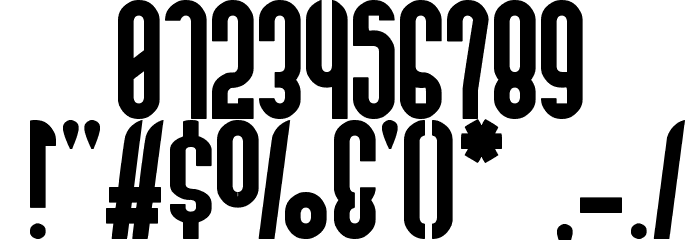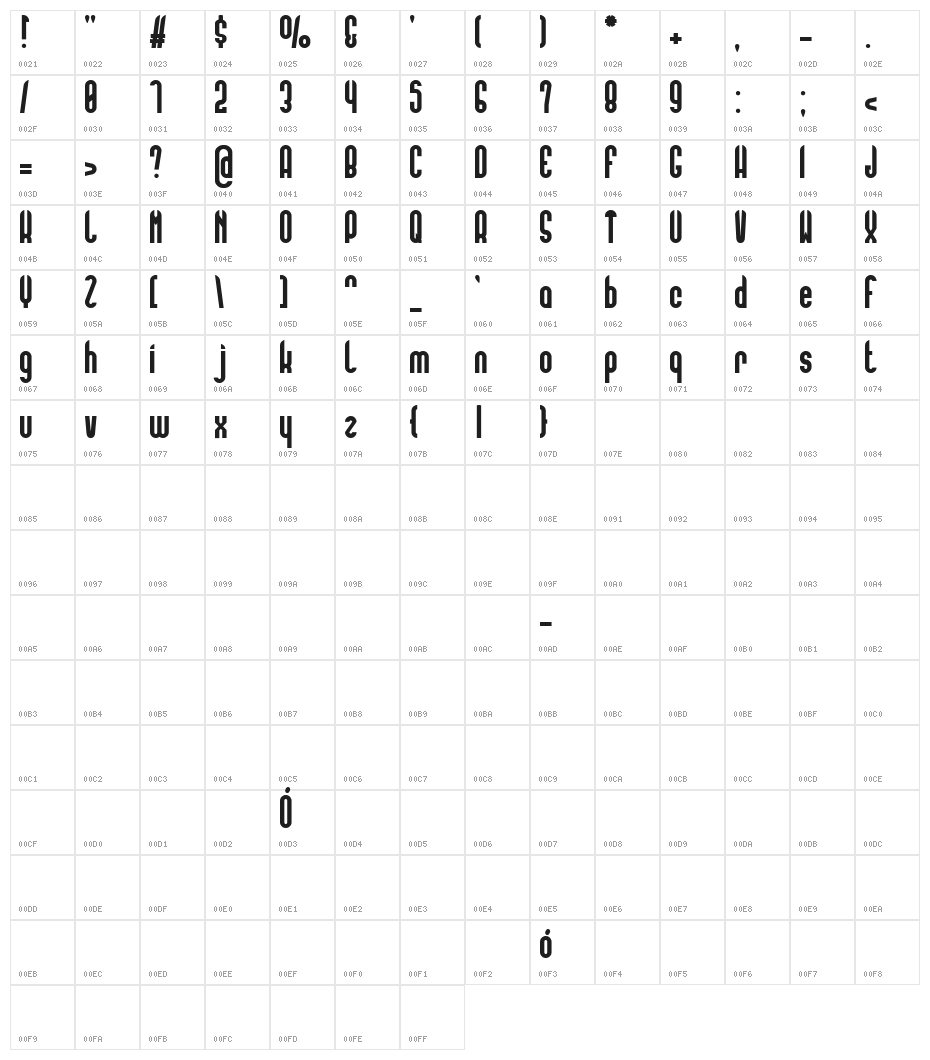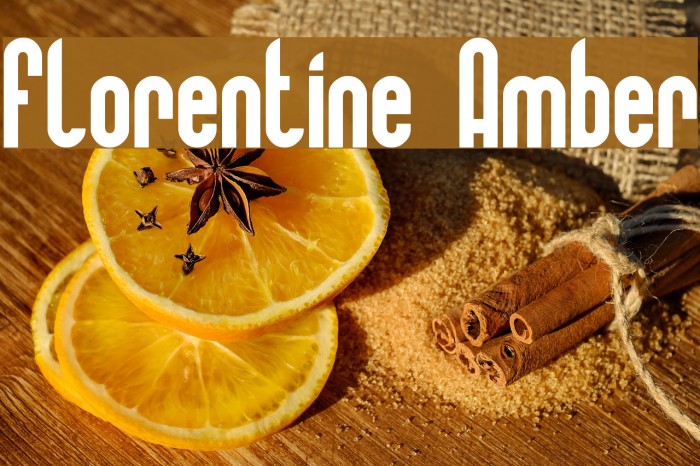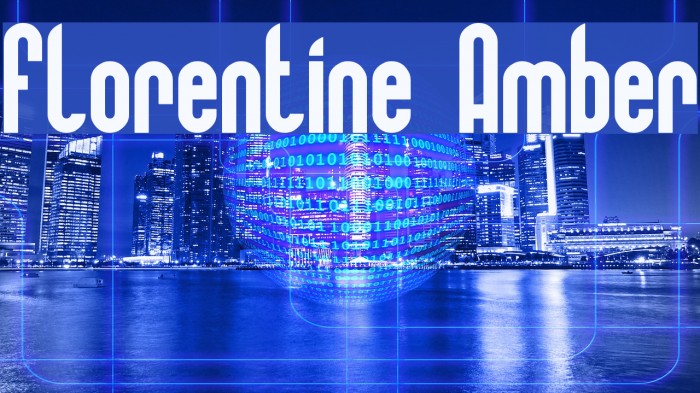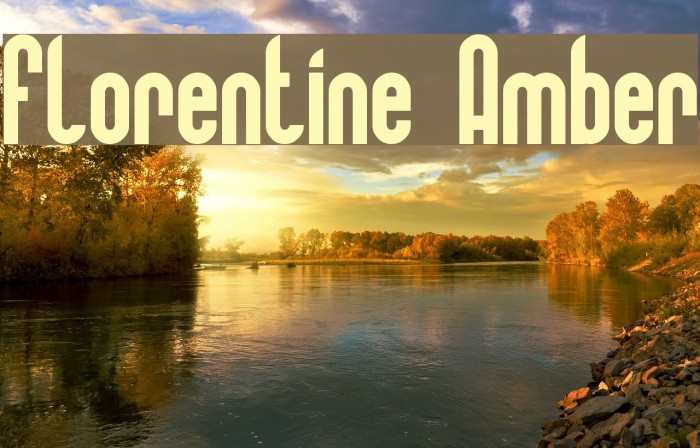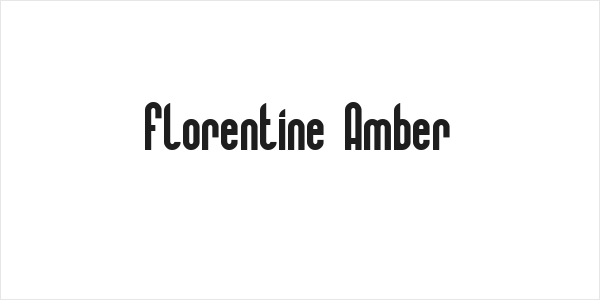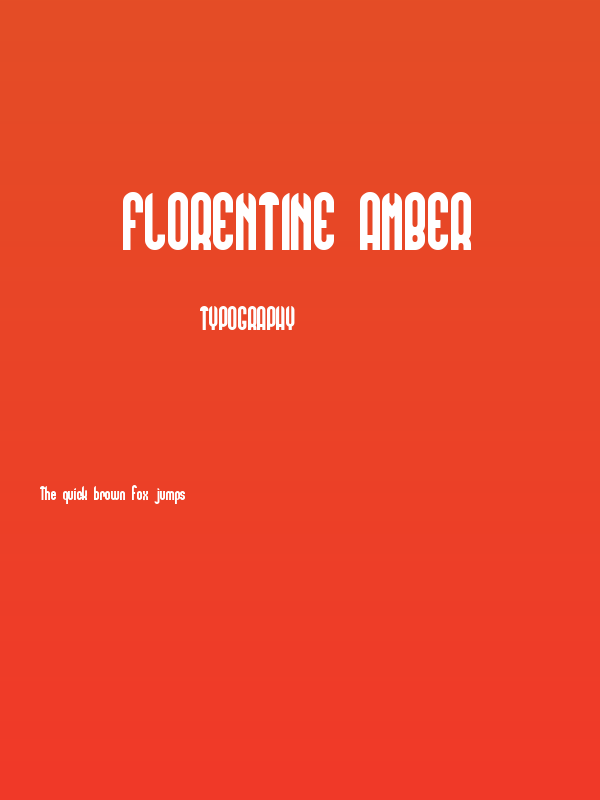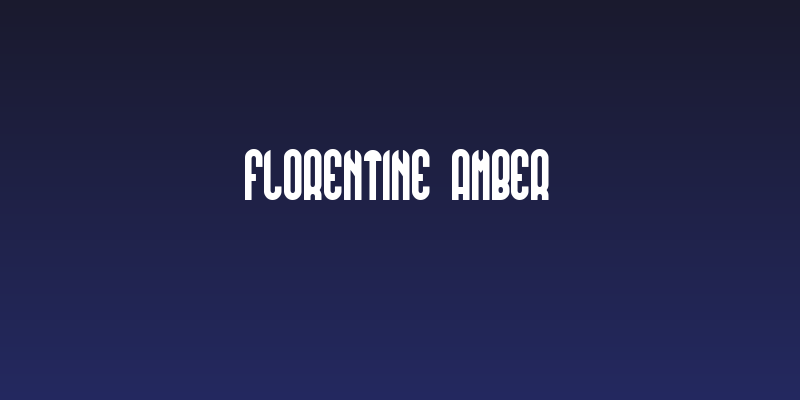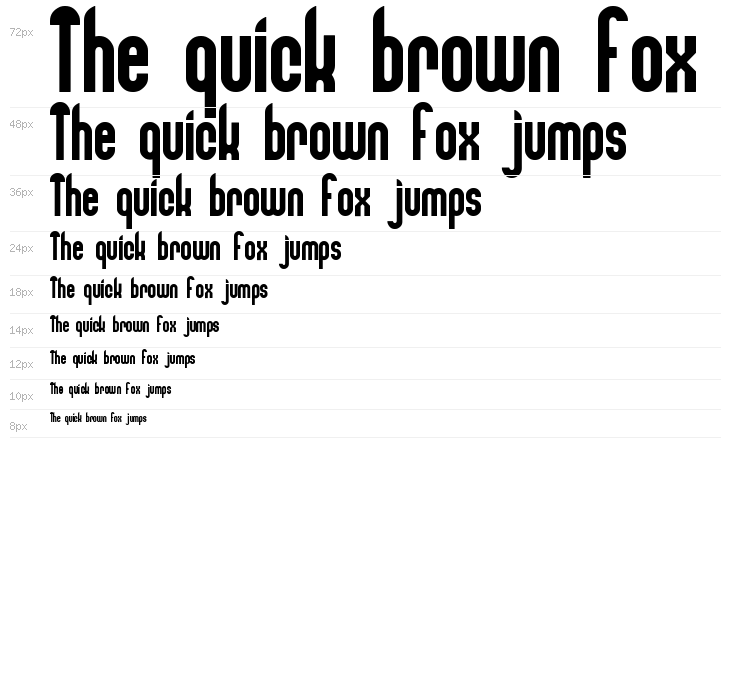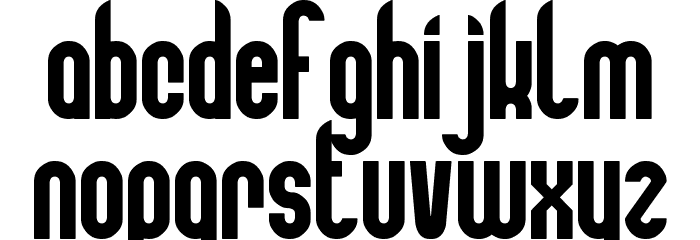
Florentine Amber Font
Florentine Amber Description
This font features a bold and striking design with thick, uniform strokes that create a strong visual impact. The characters are tall and narrow, giving a condensed appearance, while maintaining a consistent width throughout. The rounded edges and smooth curves add a touch of softness to the otherwise robust structure. The uppercase and lowercase letters are well-balanced, with a slight variation in height that enhances readability. The numerals and special characters are designed to match the overall aesthetic, providing a cohesive look. This font's unique style makes it suitable for attention-grabbing headlines and creative projects.
| Proposed Projects | Ideal for posters, logos, branding, and editorial design where a strong visual presence is needed. |